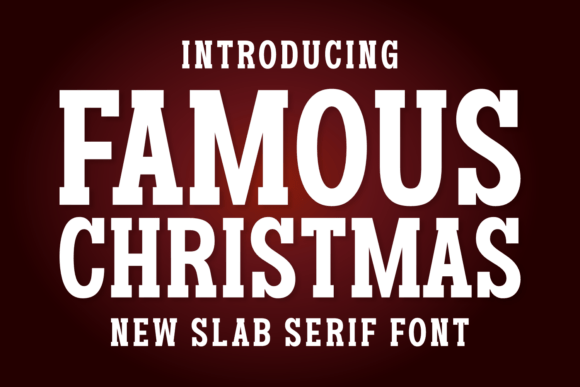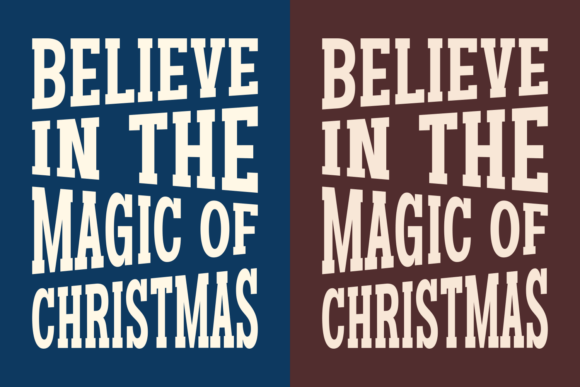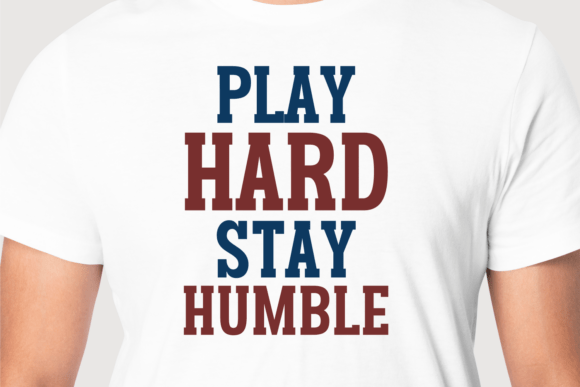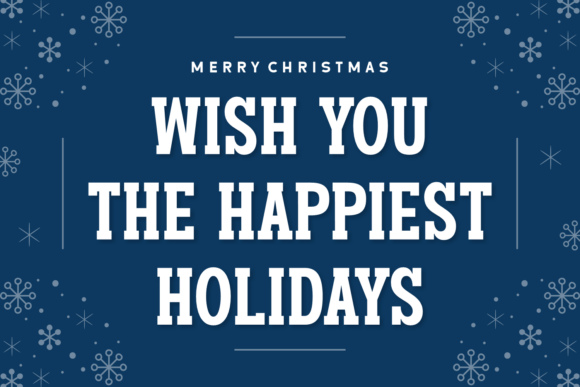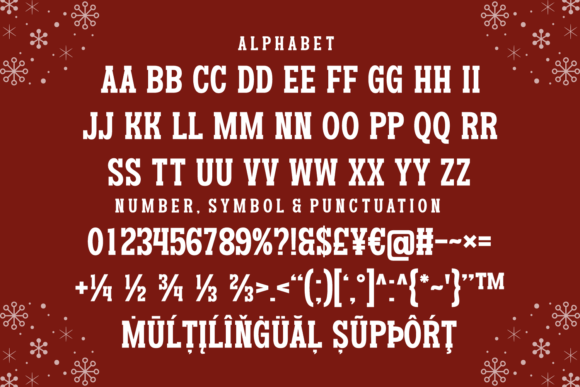
The Magic of Christmas Fonts: Unwrapping the Charm of Famous Christmas
It’s that time of the year when creativity knows no bounds, and the holiday season inspires us to think outside the box. As you browse through festive decor, cards, and gift wraps, have you ever stopped to appreciate the fonts that bring it all together? One such font that stands out in the crowd is the Famous Christmas Font—a condensed slab serif typeface that exudes warmth and energy.
This font’s robust aesthetic makes it an ideal choice for designers looking to add a touch of festive flair to their projects. Whether you’re creating invitations, periodicals, books, or labels, the Famous Christmas Font is sure to elevate your designs and capture the essence of the holiday season. Its versatility is unparalleled, making it a valuable asset for designers who want to add a bit of magic to their work.
Famous Christmas Font Key Features
- Unique Characteristics: This font features a distinctive, festive design with bold lines, ornaments, and a traditional Christmas theme, making it perfect for holiday-themed projects.
- Characters and Symbols: The font includes a wide range of characters and symbols, including uppercase and lowercase letters, numbers, punctuation marks, and festive icons, such as snowflakes and holly leaves.
Famous Christmas Font Review
I recently had the chance to work with the Famous Christmas Font, and I wanted to share my honest thoughts on this festive font.
- The font’s unique, playful style is sure to add a touch of holiday cheer to any design project.
- The font includes a wide range of characters, including uppercase and lowercase letters, numbers, and even some festive symbols.
- The font is well-suited for titles, headings, and other display text where you want to make a statement.
- The font’s design is quite bold and playful, which may not be suitable for more serious or formal designs.
- The font lacks a more subtle, elegant version that could be used for body text or other areas where readability is key.
- The font’s characters are not as detailed or refined as some other fonts in the same style.
Overall, I think the Famous Christmas Font is a great choice for designs that need a fun, festive touch. However, it may not be the best fit for more formal or professional projects. With a little creativity and experimentation, you can make this font work for a wide range of design applications.
Tips for Getting the Most Out of the Famous Christmas Font
To get the most out of the Famous Christmas Font, use it in conjunction with other festive design elements, such as snowflakes, holly, or Christmas trees. You can also experiment with different font sizes, colors, and styles to create a unique and eye-catching design.
The Famous Christmas Font is perfect for creating festive holiday cards, invitations, and social media posts. You can also use it to add a touch of Christmas magic to your website, blog, or marketing materials.